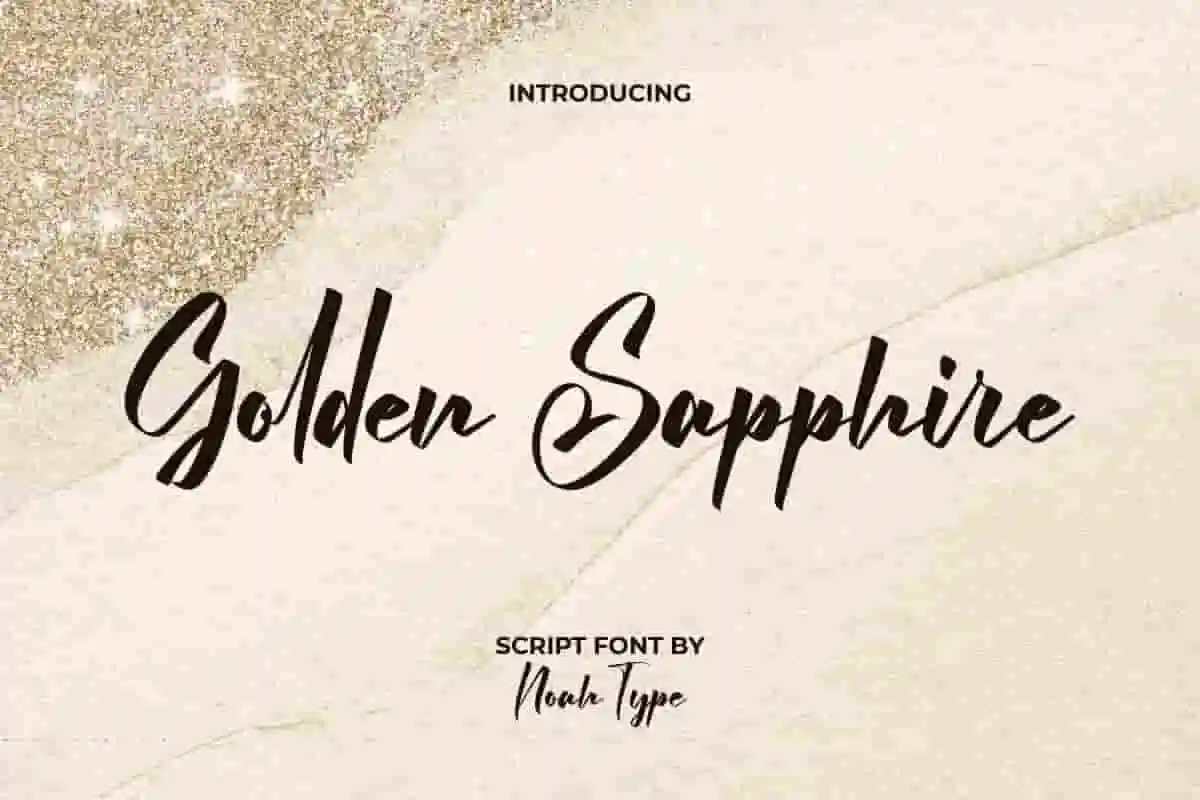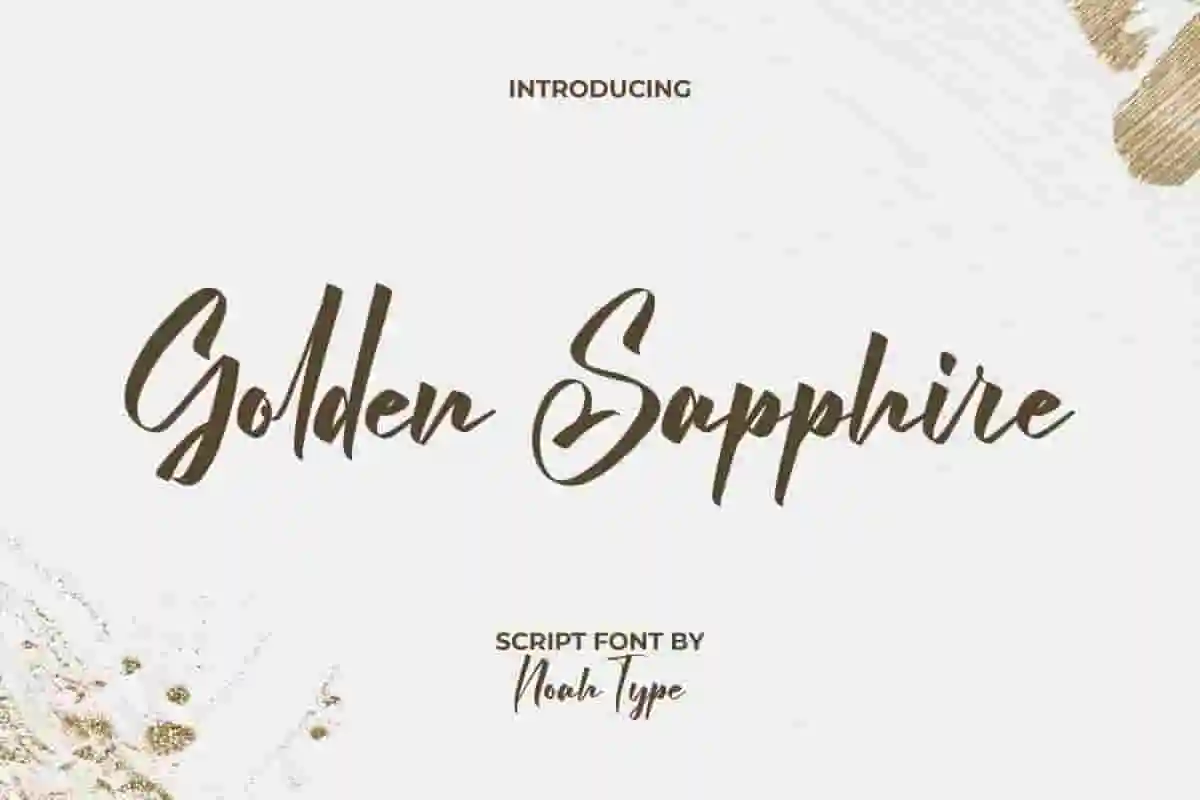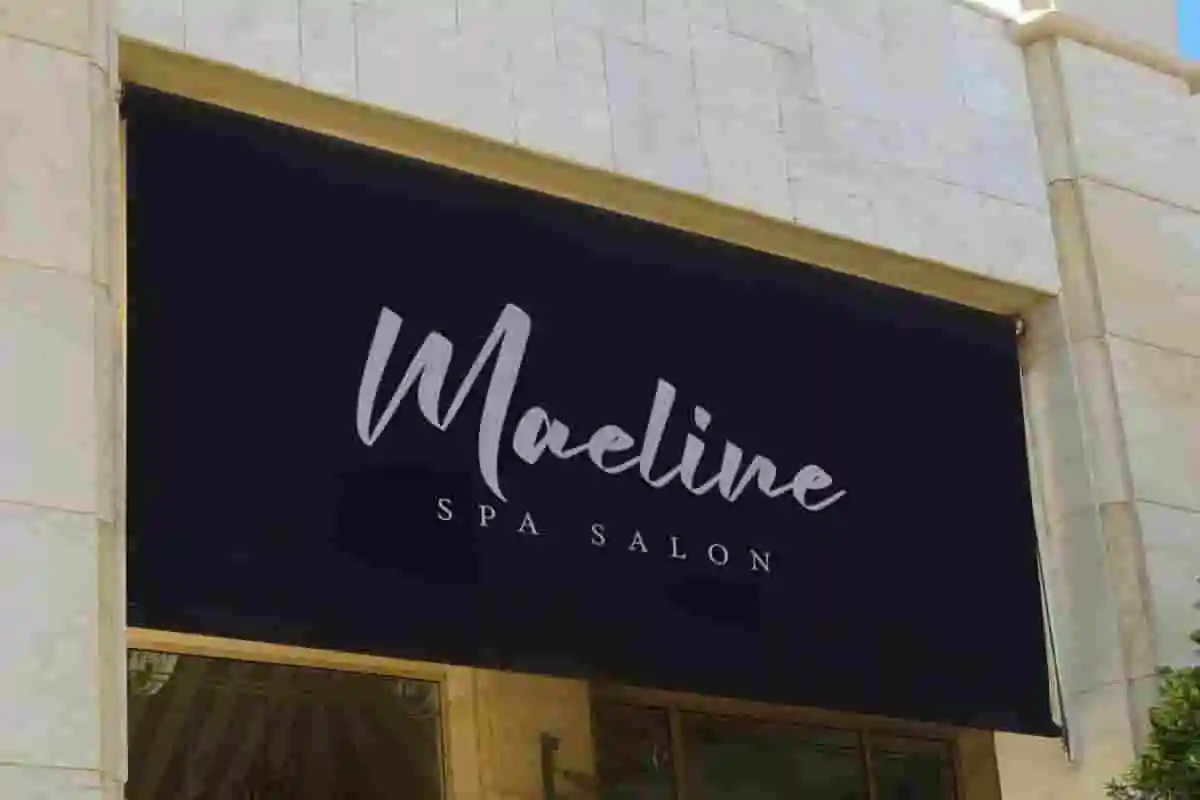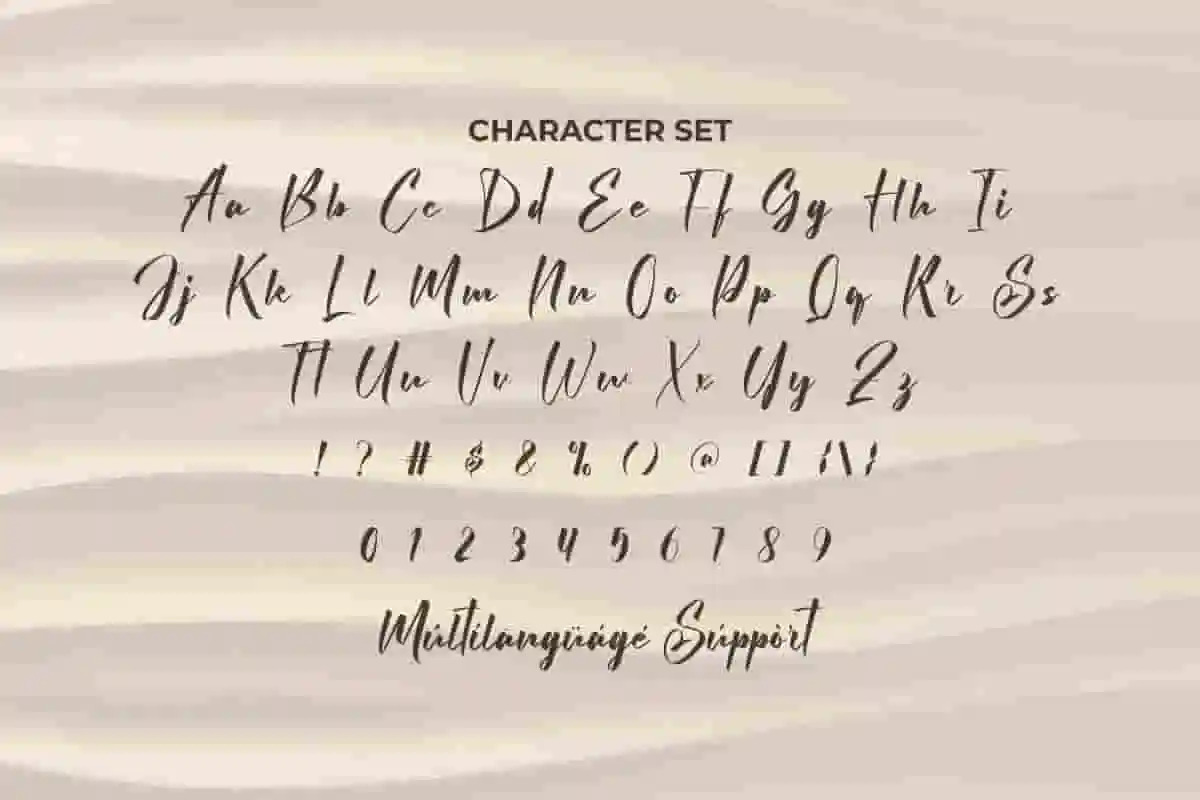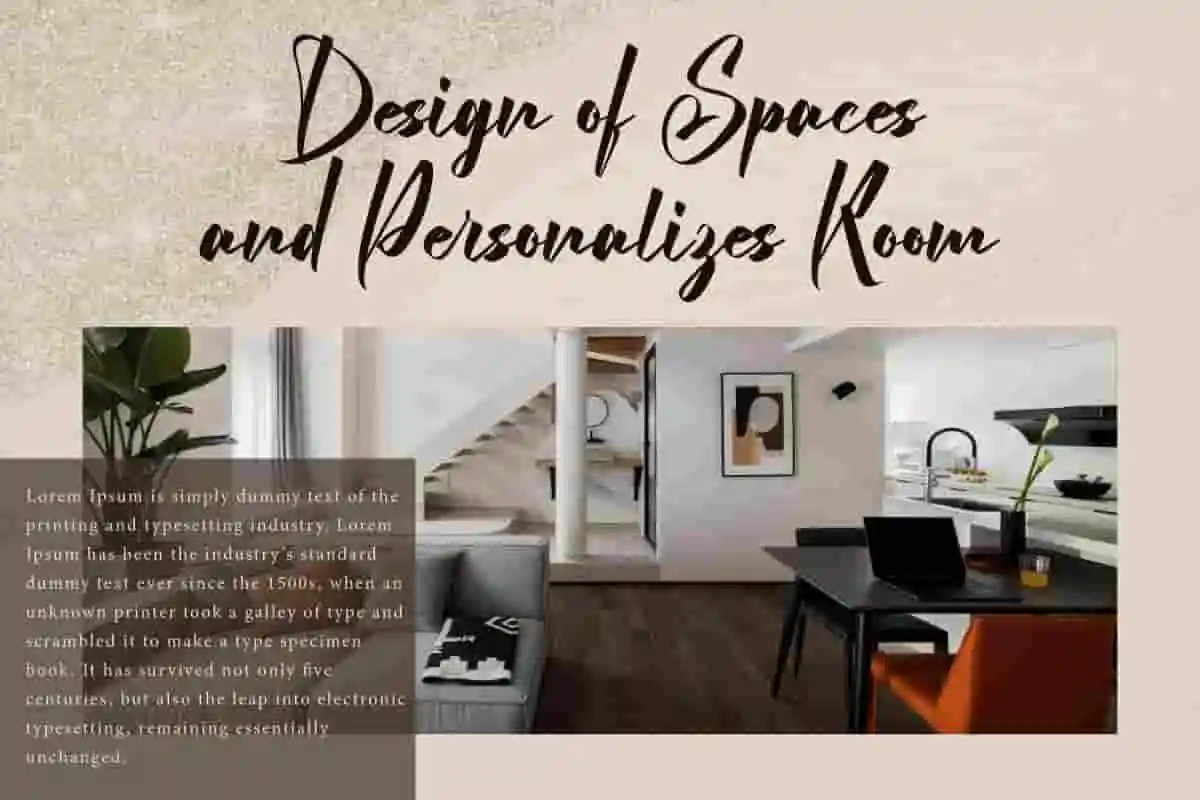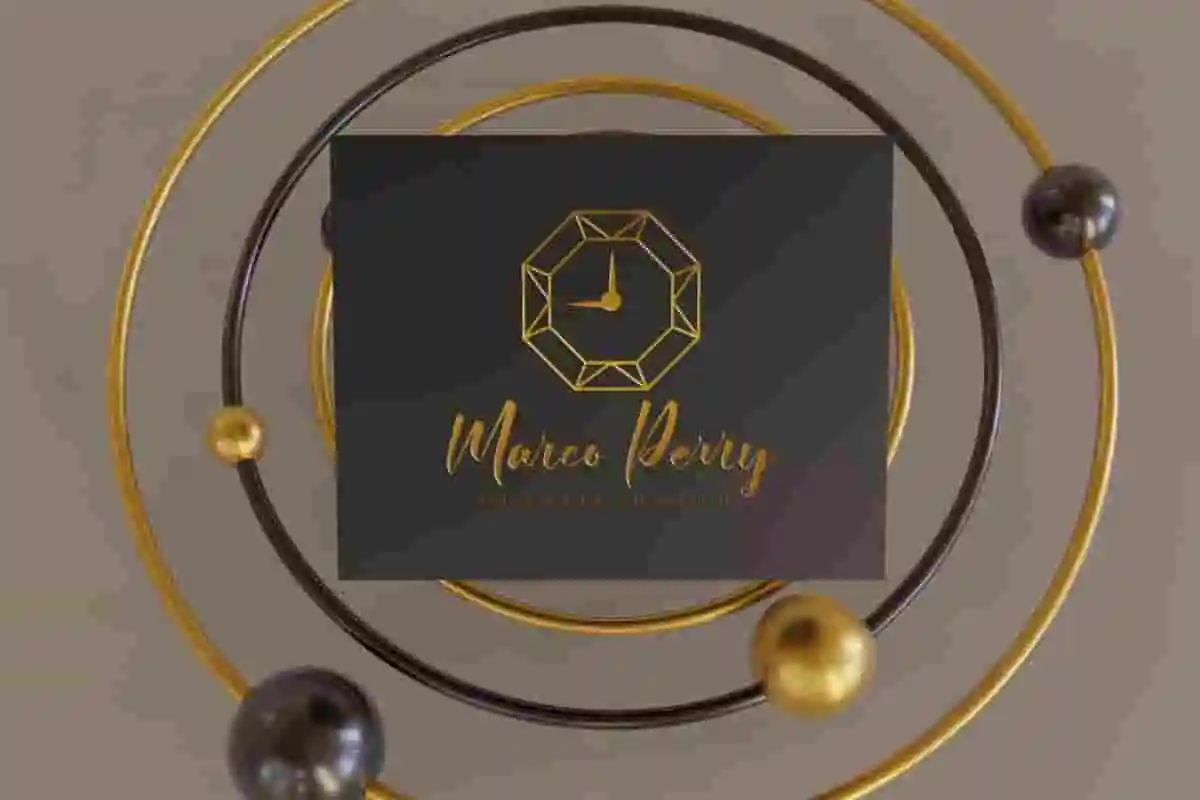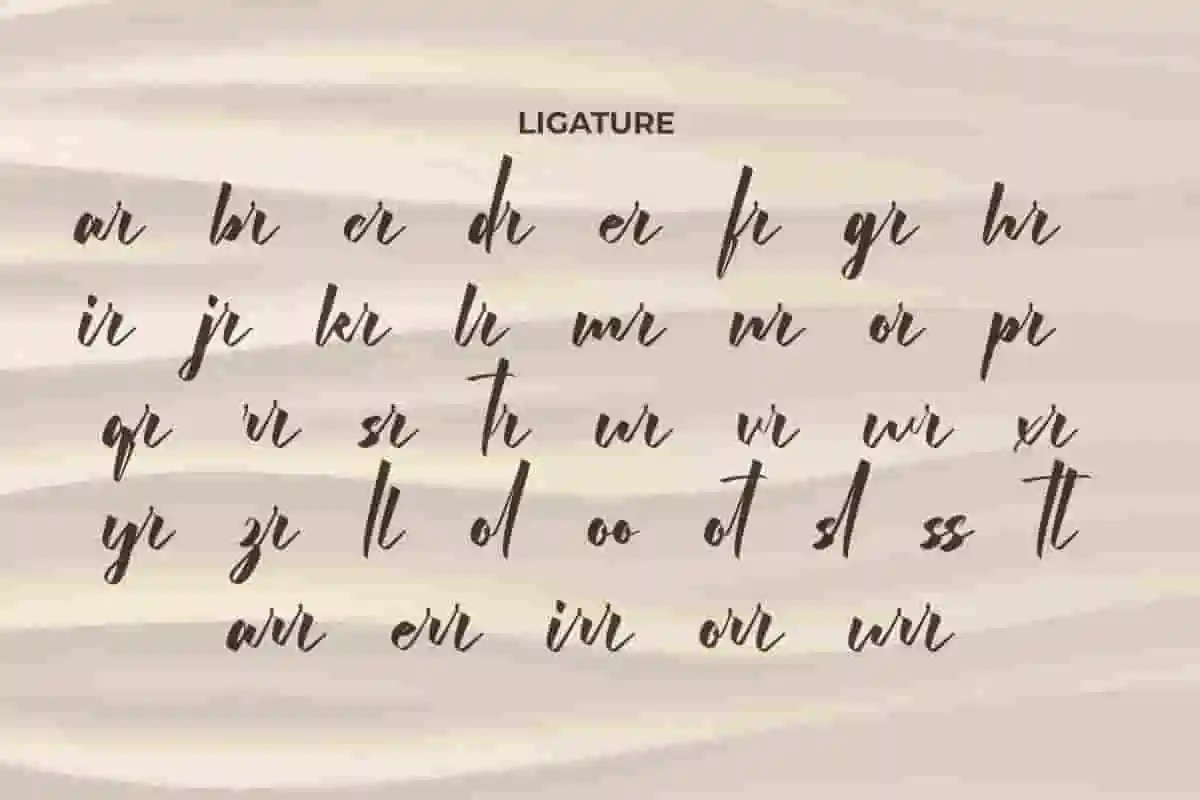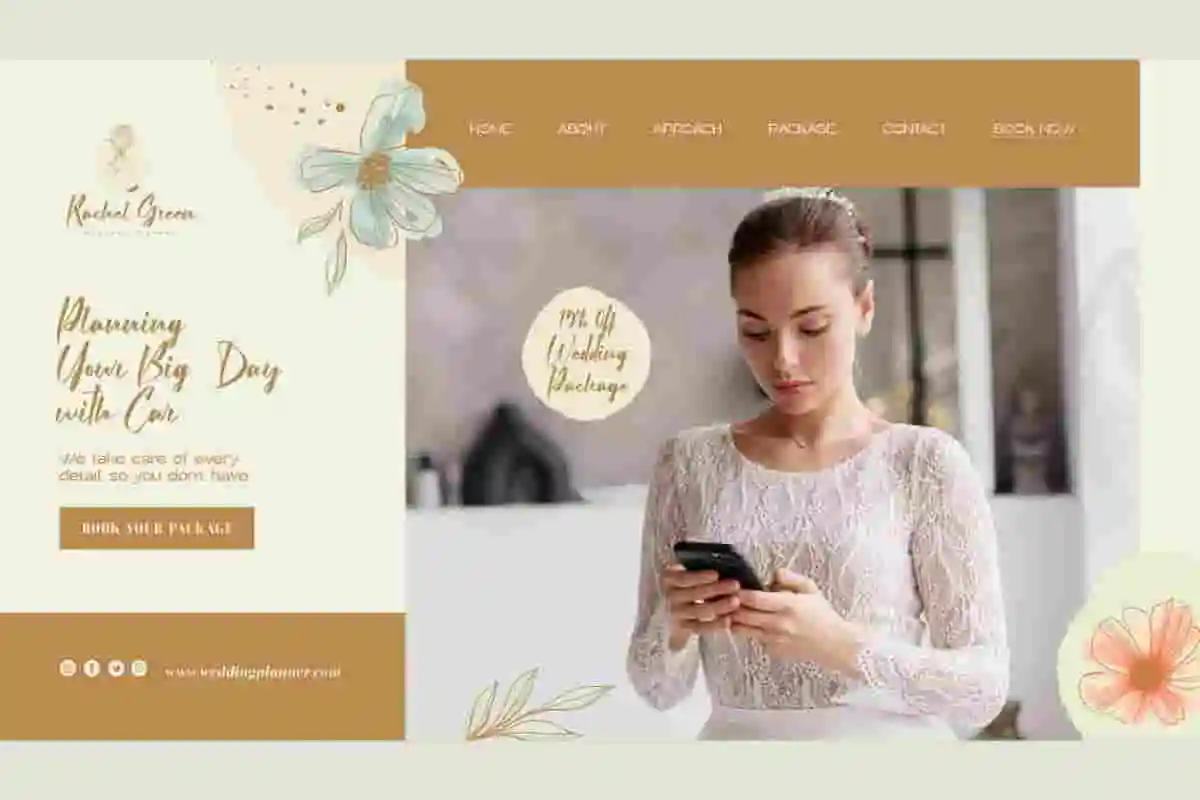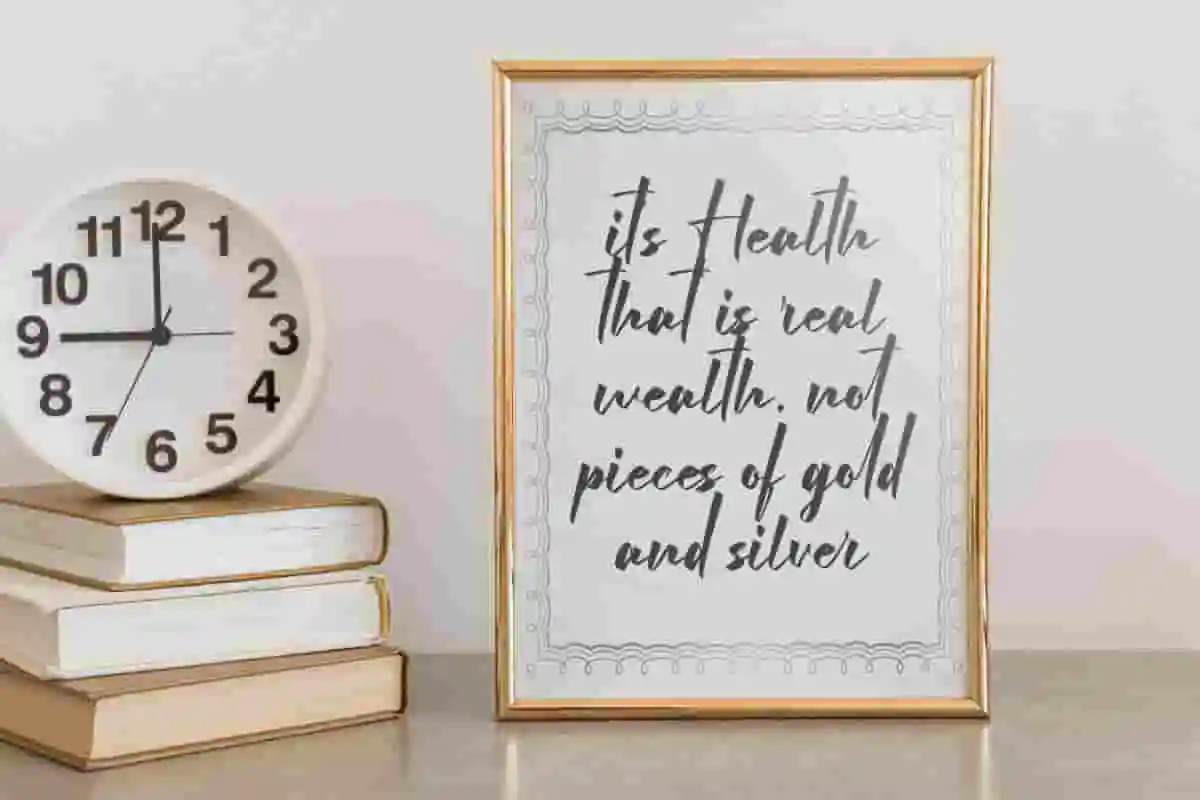
Golden Sapphire Font
Golden Sapphire Font is an elegant calligraphic script font with modern style. This font is made of thick brushes that are neatly and carefully crafted to produce beautiful lines in the font. The font will be great for many things icnluding: brochure, business card, custom design, invitation, label, magazine catalog, menu, poster, product packaging, quotes, signage, stationery, titles, website, and more!
Golden Sapphire Font includes full set of Uppercase and Lowercase Basic Characters, Numerals, and Punctuation. It also contains Ligature characters that will add perfection and making it suitable for many industries, such as cosmetic, fashion, florist, furniture, handicrafts, interior design, jewelry and accessories, restaurant, skincare, spa and salon, wedding or event organizer, writer, etc.
Golden Sapphire Font supports multilingual languages (including multiple currency symbols) with a simple installation, also have ligature characters options that you can select and use to make it standout. The font will be ready to use both on Windows machine or Mac. It work well on Adobe software such as Illustrator, Photoshop and several other software.